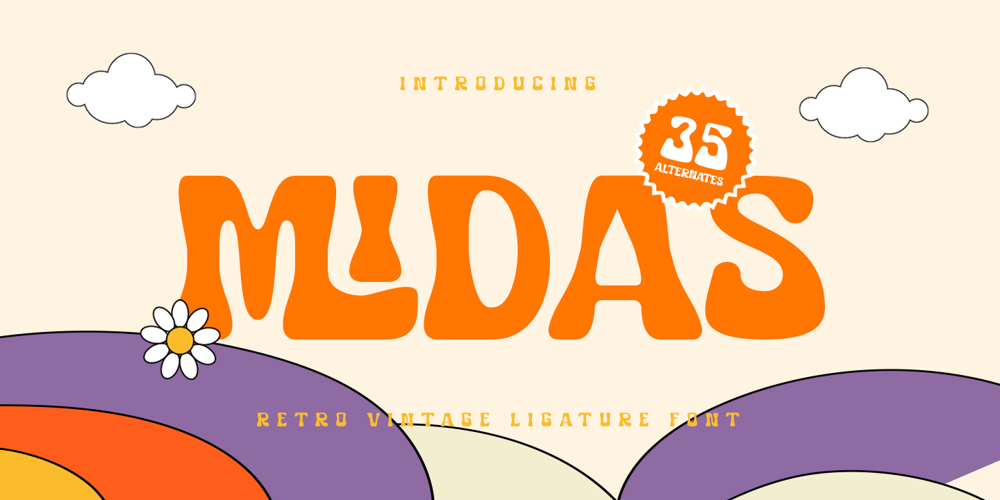
Midas Style
Midas Style font
Midas Style Font Family was designed by Zamroni Hamzah and published by Sensatype Studio. Midas Style contains 1 styles and family package options. Midas Vintage Retro Ligature Font is a well-balanced contemporary font with a fancy, unique, and versatile vintage serif, font that you can combine to get any variations and unique shapes easily just in seconds with choose alternates of them. IWhat’s Included: Character set A-Z Uppercase & Lowercase Numerals & Punctuation Accented Characters (West Europe) Stylistic alternates Works on PC & Mac Recommended using Adobe Illustrator or Adobe Photoshop. Wish you enjoy our font. ๐Ÿ™‚